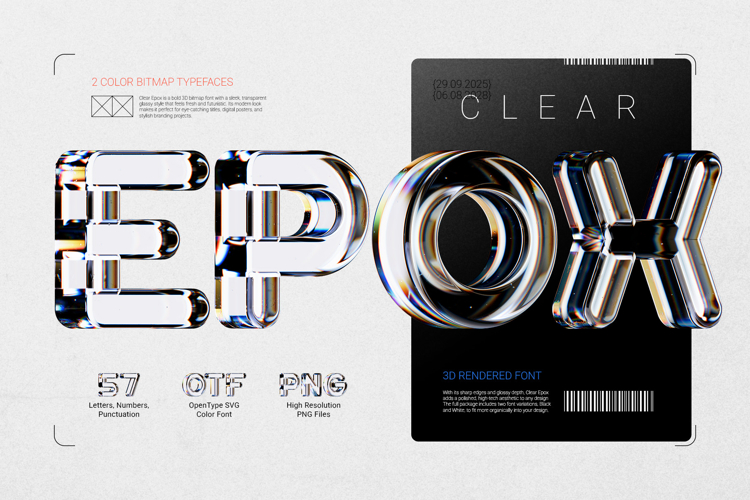
Clear Epox - Color Bitmap Font
Clear Epox is a bold 3D bitmap font with a sleek, transparent glassy style that feels fresh and futuristic. Its modern look makes it perfect for eye-catching titles, digital posters, and stylish branding projects. The full package includes two font variations, Black and White, to fit more organically into your design.